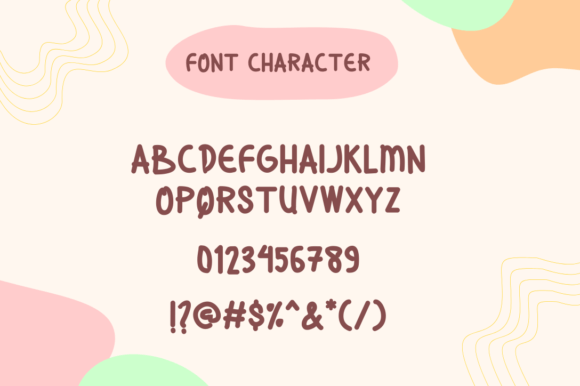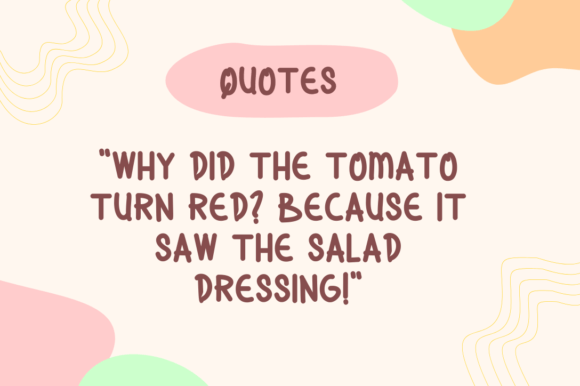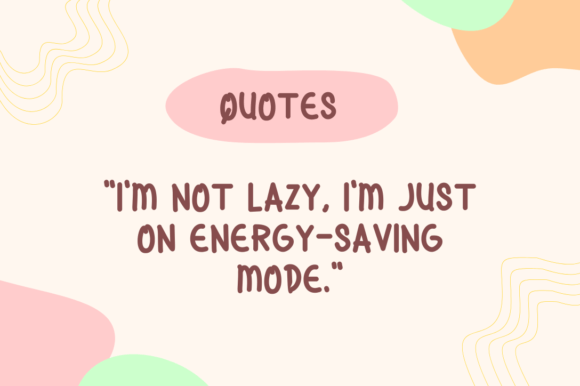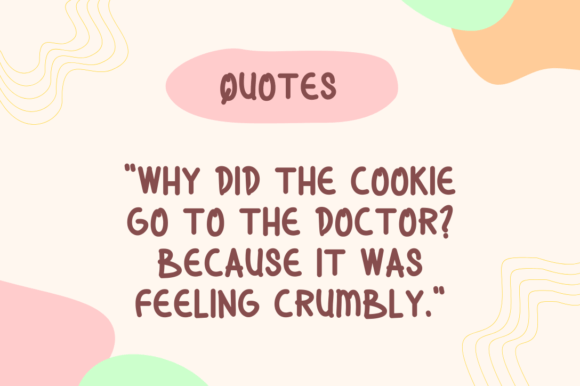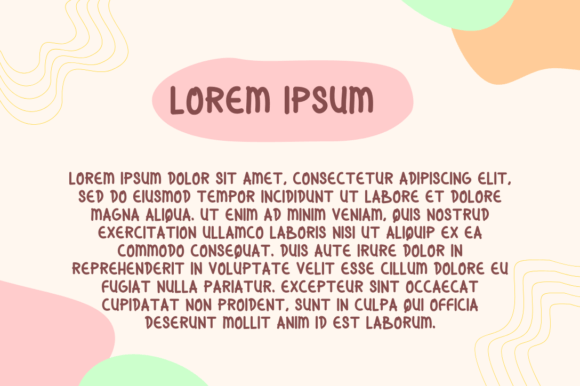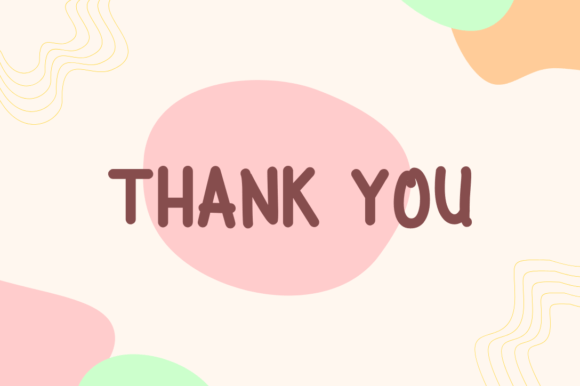
Introduction to Momosar Font
Have you ever stared at a blank canvas, wondering what font will bring your creative project to life? For designers, finding the perfect font can be a daunting task, but what if I told you that there’s a game-changer in the design world? The Momosar Font is here to elevate your designs and leave a lasting impression.
With its cool and trendy design, Momosar Font is perfect for logos, badges, clothing, posters, and other projects that need to stand out from the crowd. This high-quality font is a valuable resource for designers who want to add a touch of sophistication and elegance to their work. Whether you’re working on a free download project or need a design resource for a commercial client, Momosar Font is sure to deliver.
Key Features of Momosar Font
- High-quality, vector-based font for a transparent background, ideal for creative projects
- Supports a wide range of languages, making it a versatile design resource for global projects
- Includes a range of font sizes, from 12pt to 72pt, allowing for flexibility in design
- Resolution: 300 DPI, suitable for high-quality printing and digital use
- Unique, hand-drawn design elements that add a touch of personality to any creative project
Honest Review: Momosar Font
As a designer, I’m always on the lookout for high-quality design resources to elevate my creative projects. Recently, I had the chance to work with the Momosar Font, and I must say it’s a solid addition to my design arsenal.
What works well: ✨ The Momosar Font boasts a unique and elegant design that’s perfect for a variety of creative projects. Its high quality is evident in its smooth lines and detailed characters. Plus, it’s available for free download, making it an excellent resource for designers on a budget. I also appreciate the transparent background, which makes it easy to combine with other design elements.
- Unique and elegant design that’s perfect for creative projects
- High-quality design with smooth lines and detailed characters
- Transparent background for easy combination with other design elements
However, there are a few limitations: ⚠️ While the font is aesthetically pleasing, it may not be the best choice for projects that require a wide range of font sizes or weights. Additionally, some users may find the font’s style a bit too ornate for certain designs.
Overall impression: The Momosar Font is a solid choice for designers looking for a high-quality, elegant font for their creative projects. While it may have some limitations, its unique design and free download make it an excellent resource for designers on a budget.
Tips for Getting the Most Out of Momosar Font
Use Momosar Font on a transparent background to create a clean and minimalist design. Experiment with different font sizes and colors to create visual interest. Consider pairing Momosar Font with other high-quality design resources to enhance your creative project.
Momosar Font is ideal for a variety of creative projects, including logos, business cards, and social media graphics. Its high-quality design and transparent background make it a versatile design resource for any project.